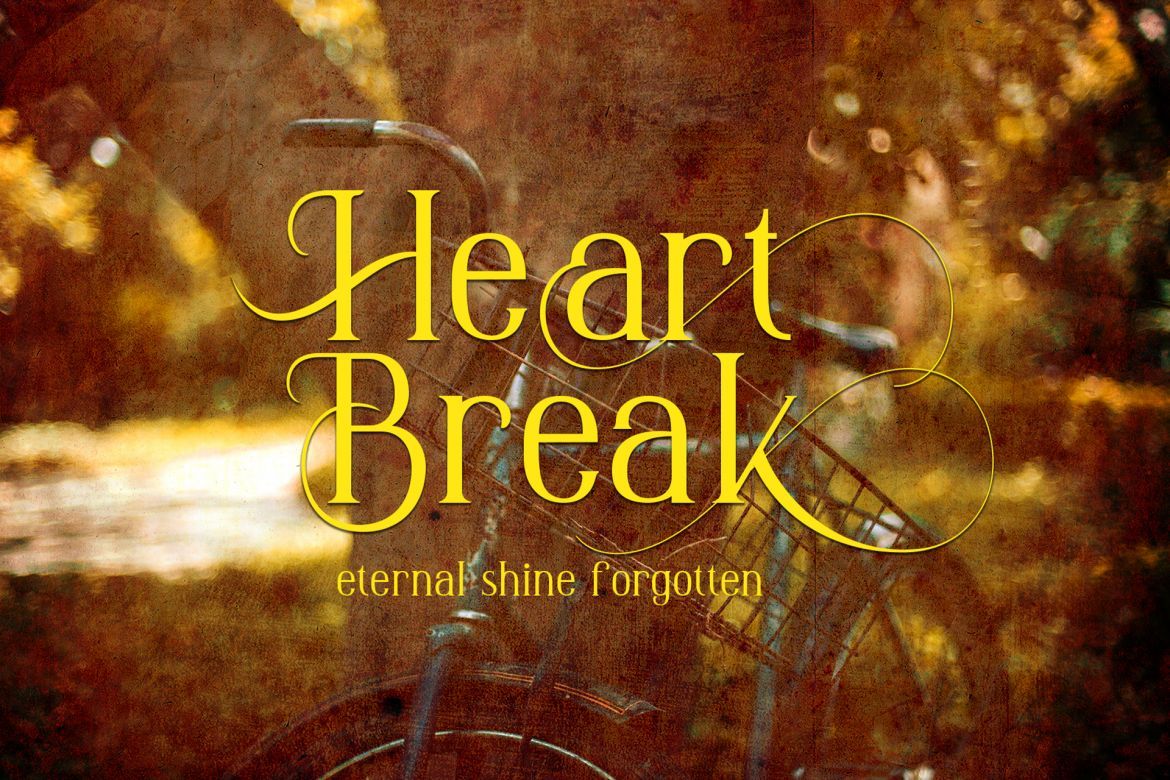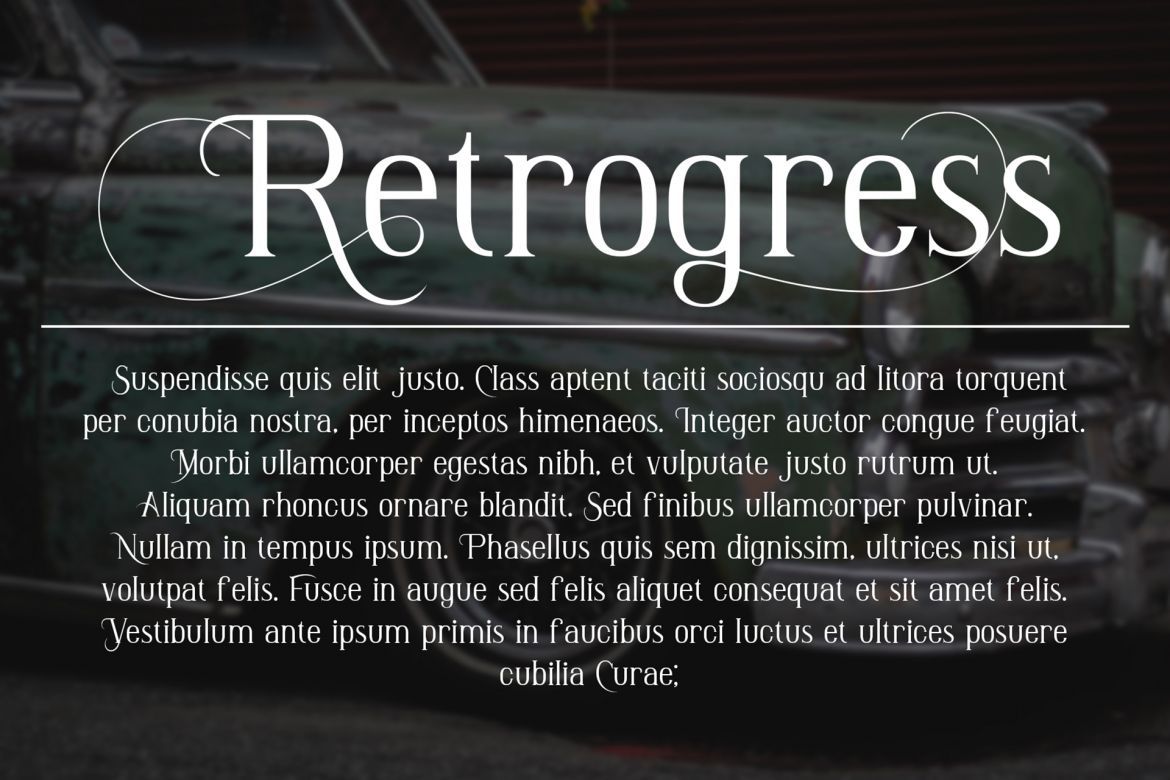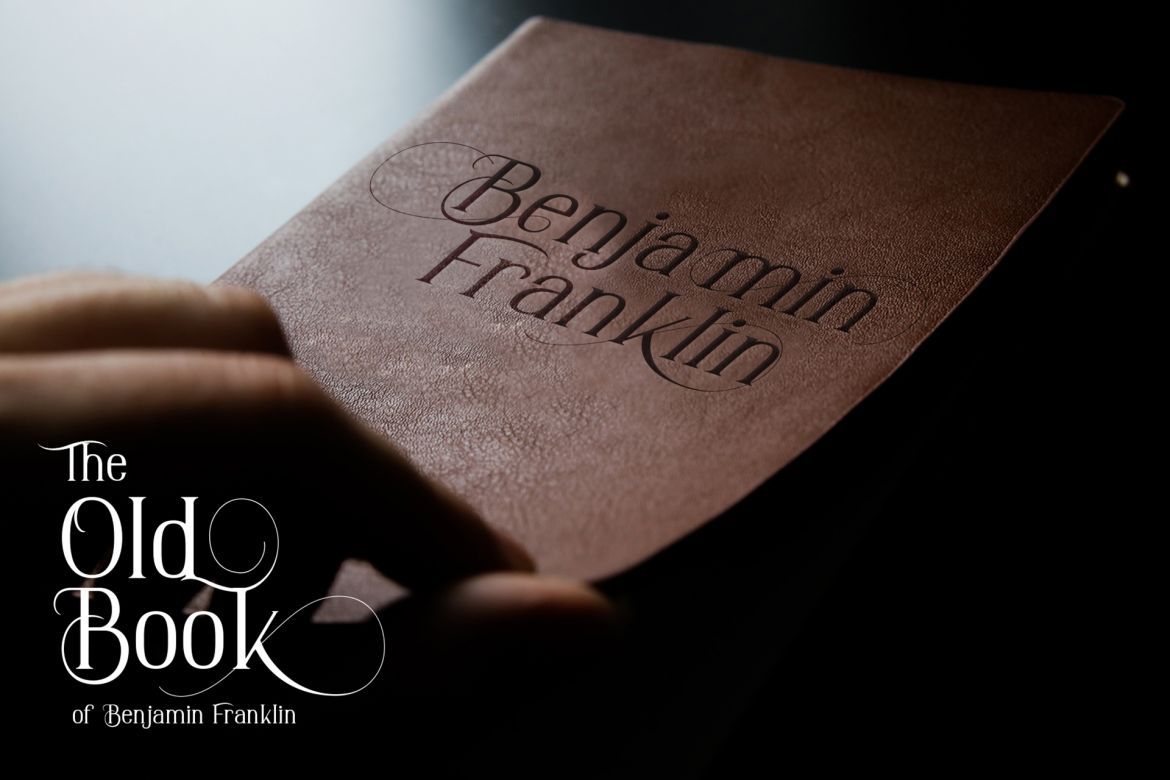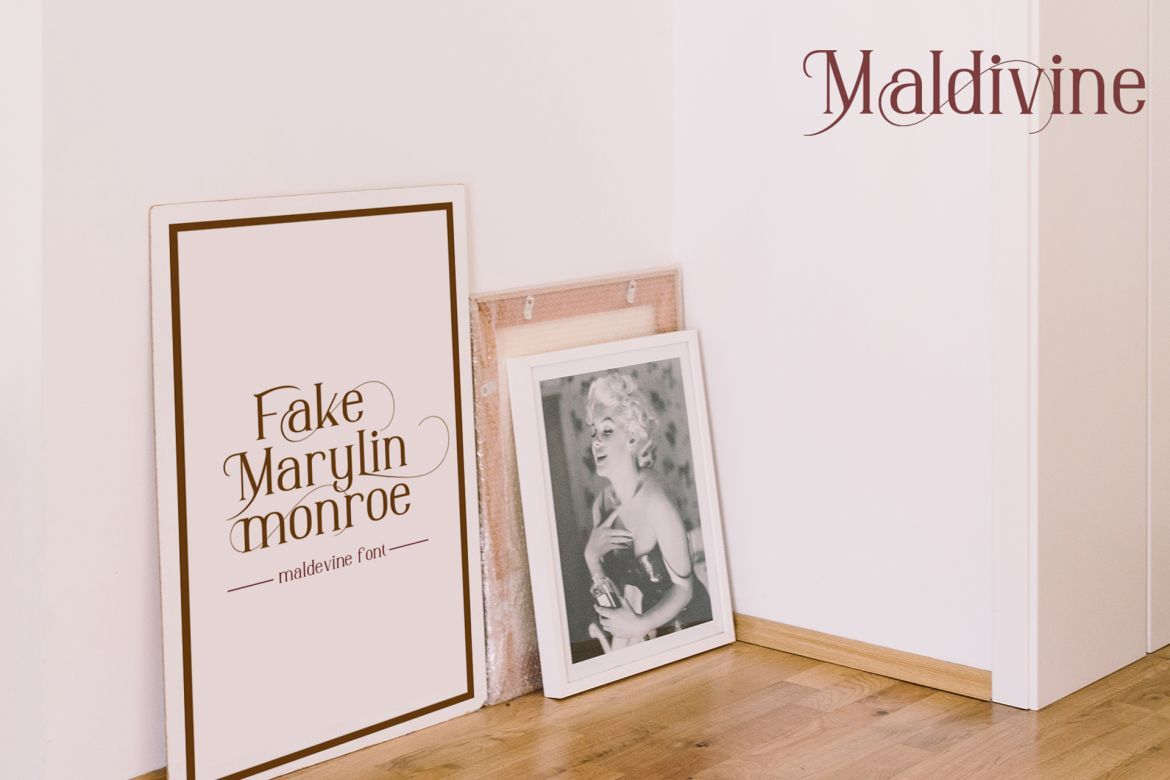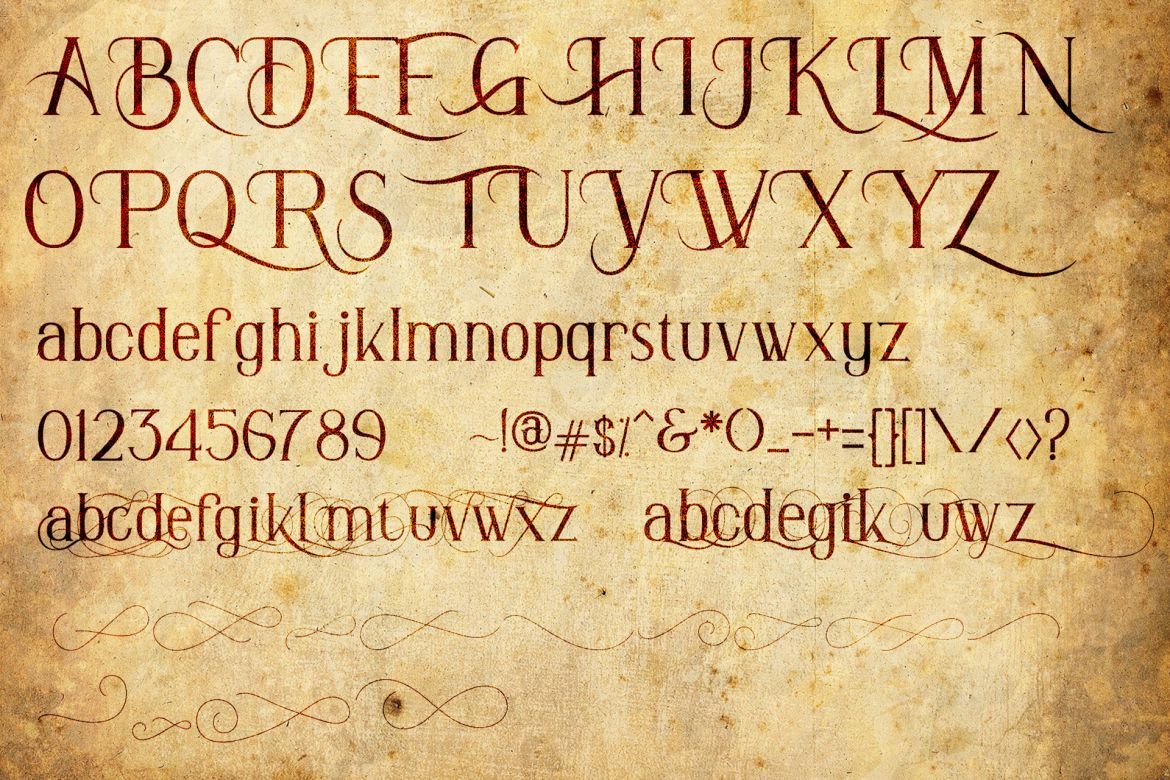
Maldivine Font
-- Retro / Elegant / Vintage --
Maldivine is a Vintage black letter font. Inspired by a old English movie poster than i try to combine it with a modern concept with a victorian style touch. it's perfect for you to show your design or product in professional way.
USE Maldivine works great in any branding, logos, lettering, films, poster, flyer, sign board.
• strong vintage and elegant